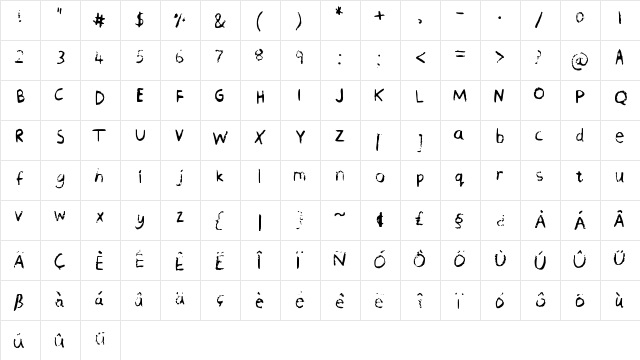
Chequered Pencil Crayons Regular
Design Context for Chequered Pencil Crayons Typeface
Chequered Pencil Crayons is a composed and adaptable typeface that performs quietly and consistently across a wide range of design contexts.
Pro Tip: Use Chequered Pencil Crayons in both headline and body roles to test its range before committing to a single application.